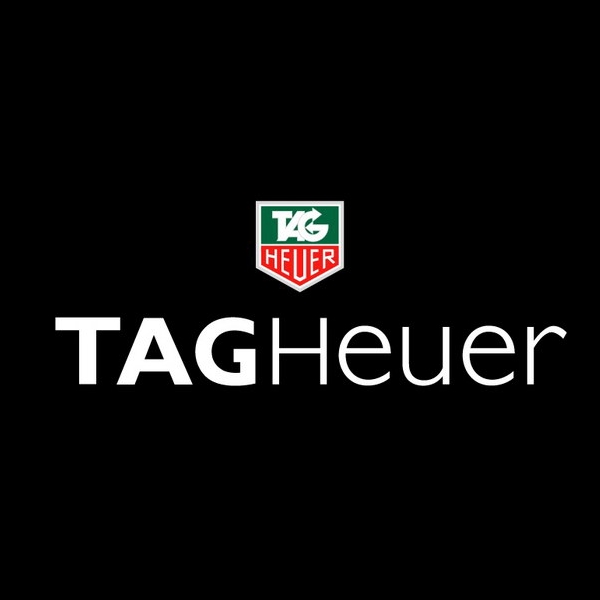
Tag Heuer Font
ApparelTAG Heuer is a Swiss luxury watch and accessories brand founded in 1860 by Edouard Heuer. It is known for its high-quality, precision timepieces and innovative designs.
The wordmark for TAG Heuer is most likely written in Gill Sans, with "TAG" placed in the bold version and "Heuer" in the light version. Eric Gill is the designer of the Gill Sans typeface. You can view details about the typeface here.